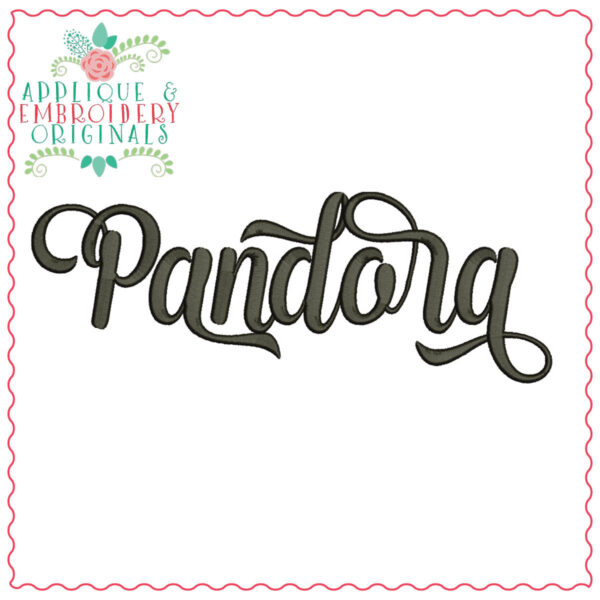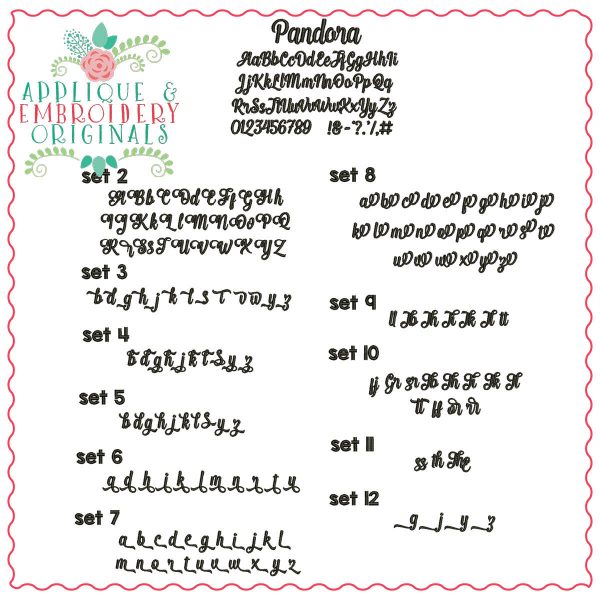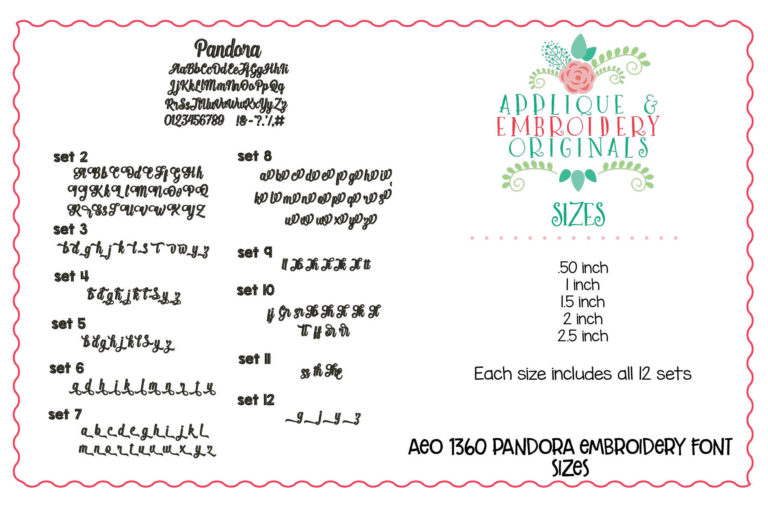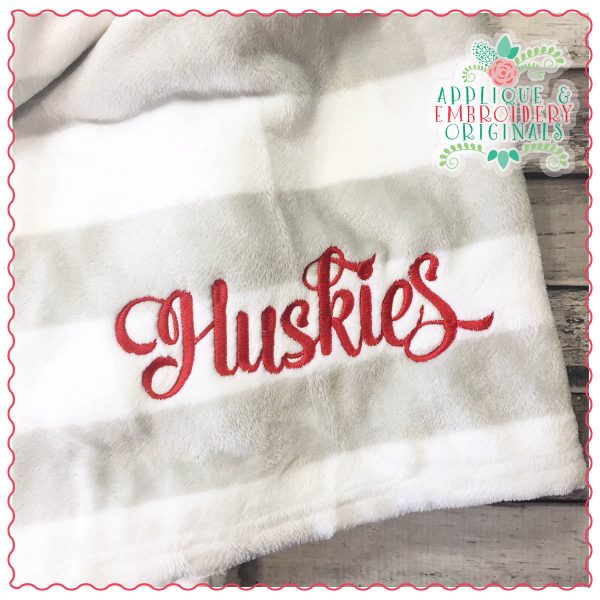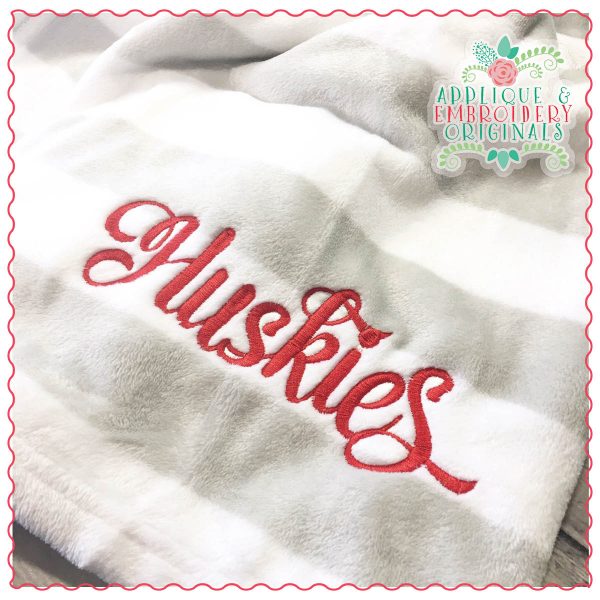
1360 Pandora Script Embroidery Font. Perfect for anything you want to monogram!!
Designs comes in sizes .50, 1, 1.5, 2 and 2.5 inch. All formats include 12 sets. All letters are satin stitch. Note that sets 9, 10, and 11 do not include the BX file format. All others sets, the bx file format are individually mapped.